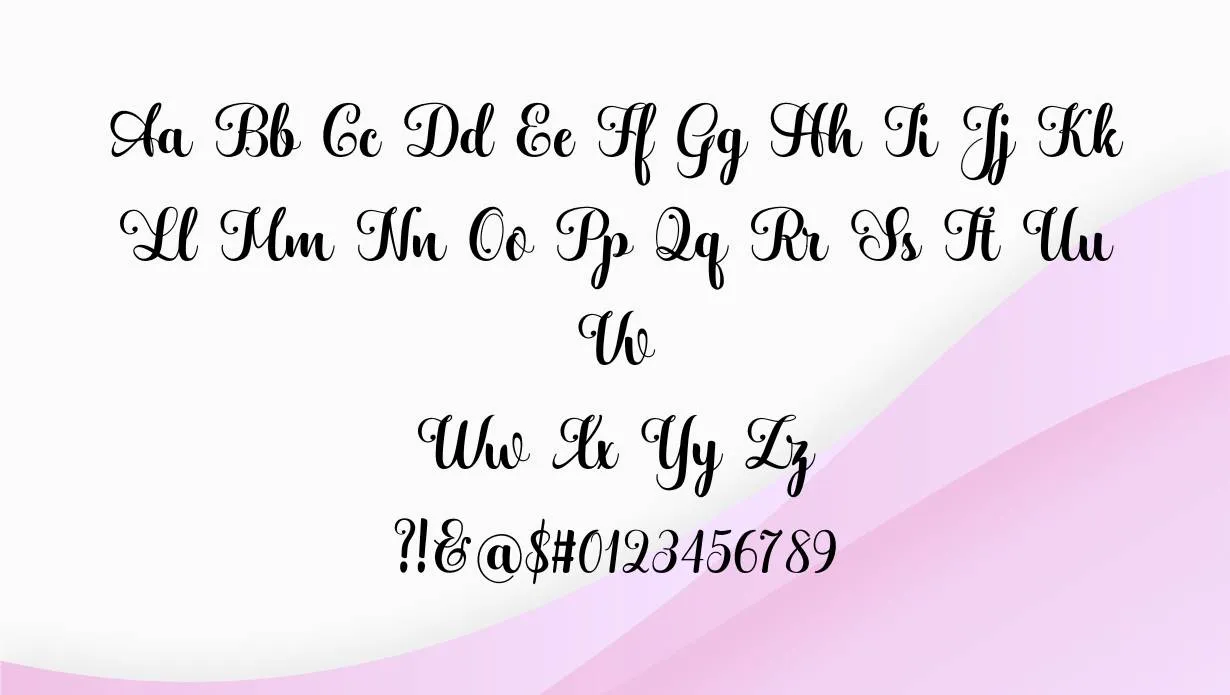
Hatachi font swoops in like a stylish friend, bringing a modern twist to your words. It’s like adding a sleek accessory to your outfit, making everything look a bit more hip. This font’s weight is moderate, not too heavy or too light, striking a balance that gives your text a contemporary edge.
Its width is comfortably neutral, making it readable in various settings. Whether you’re jazzing up a project or creating standout posters, Hatachi effortlessly adds that touch of flair without overwhelming your message.
| Name | Hatachi Font |
| Designer | Marwah Store |